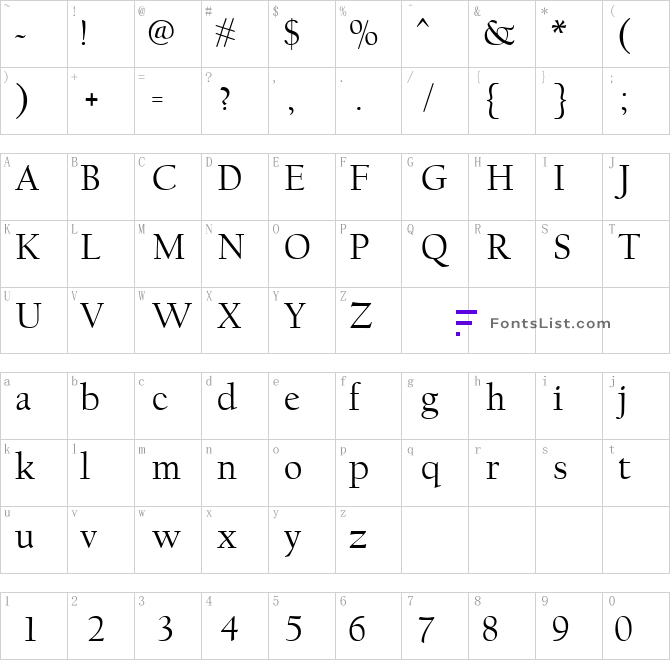
• Font Name:Californian FB
• Full Name:Californian FB
• Copyright:Copyright (c) 1989, 1994, 1997, 1998, The Font Bureau, Inc. Designed by David Berlow after Fred Goudy. All rights reserved.
Californian-FB.ttf is a very beautiful artistic font, Californian-FB.ttf is widely used in the design and printing of various books and pictures,Californian-FB.ttf has a strong visual impact,Californian-FB.ttf is a commonly used font in newspapers, magazines and books, and is used in posters, e-commerce Poster design, store design, logo design, font design and other fields.Californian-FB.